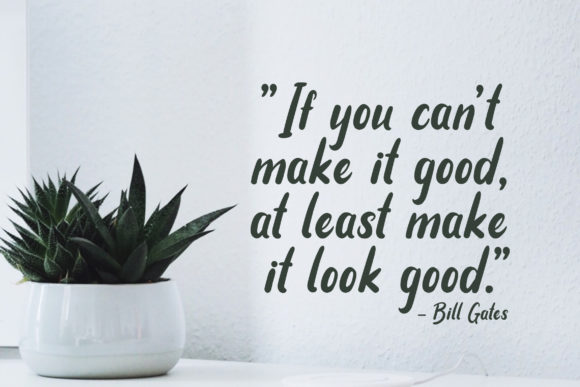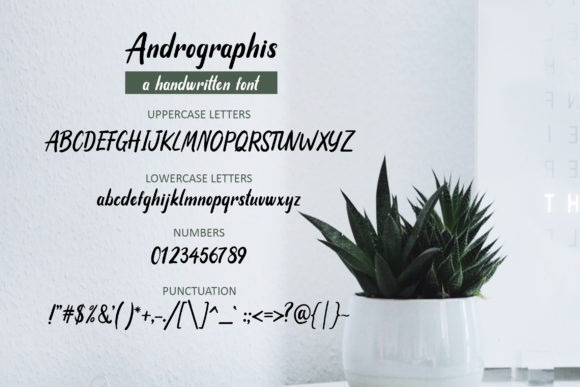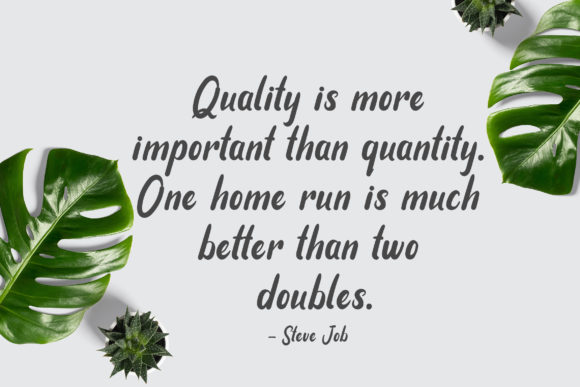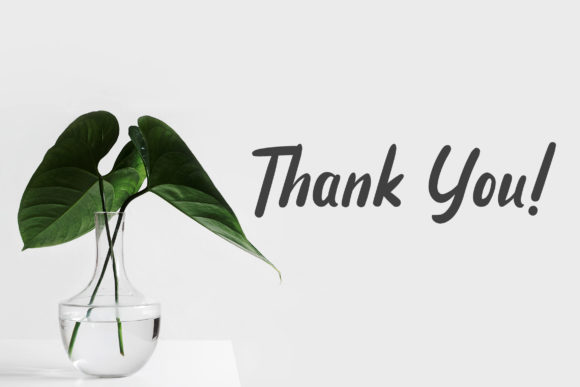
The Sweet Charm of Andrographis Font: A Designer’s Delight
I’ll never forget the time I was working on a branding project for a trendy coffee shop. My client wanted a font that was both elegant and playful, but I was struggling to find the perfect fit. That’s when I stumbled upon Andrographis Font, and it instantly won my heart with its sweet and charming script that’s full of life. If you’re a designer, crafter, or creative hobbyist looking for a font that exudes a relaxed vibe, you’re in the right place!
• ✅ Unique Character: Andrographis Font has a distinct personality that’s hard to find in other scripts. Its relaxed vibe makes it perfect for creative projects that need a touch of whimsy.
• ✅ Legibility: Despite its playful nature, Andrographis Font remains surprisingly legible, even at smaller font sizes.
• ✅ OpenType Features: This font comes with a range of OpenType features, including glyphs and stylistic alternates, which give you plenty of creative freedom.
• ⚠️ Limited Use Cases: While Andrographis Font is incredibly versatile, it may not be the best fit for very formal or traditional designs.
• ⚠️ Kerning Issues: As with any script font, you may need to adjust the kerning manually to achieve optimal results.
The Story Behind Andrographis Font
Andrographis Font was designed with the intention of creating a script that’s both elegant and playful. The designer wanted to craft a font that would evoke a sense of relaxation and creativity, perfect for designers and crafters looking for a unique touch.
Q: What is Andrographis Font?
A: Andrographis Font is a sweet and charming script that’s full of life. It’s perfect for creative projects that need a relaxed vibe.
Q: Is Andrographis Font suitable for formal designs?
A: While Andrographis Font is incredibly versatile, it may not be the best fit for very formal or traditional designs. However, it can still work well for formal designs that require a touch of whimsy.